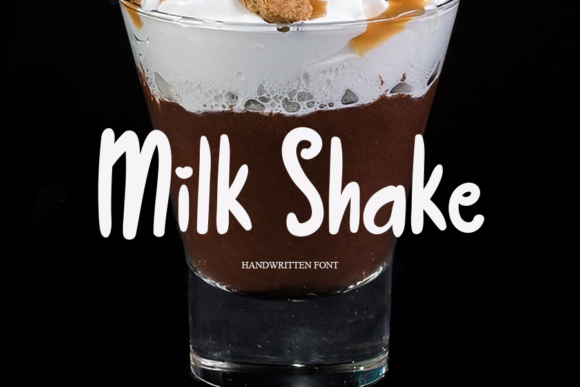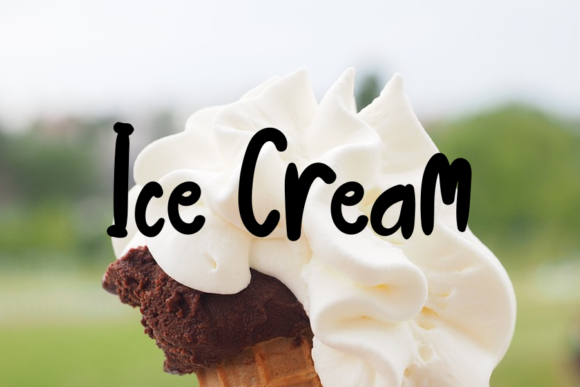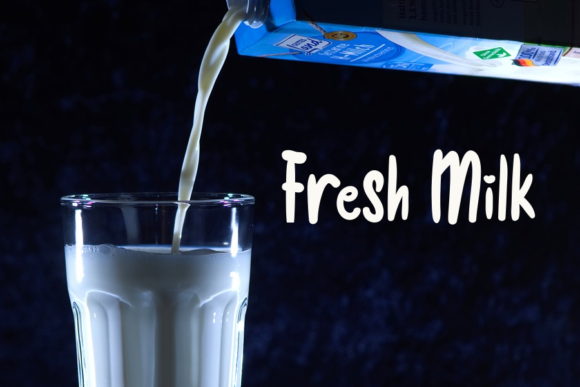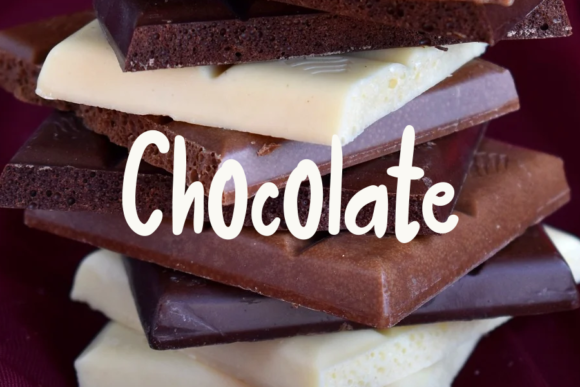
About Milk Shake Font
Introducing Milk Shake, a simple handwritten font that strikes the perfect balance between readability and trendiness. This font is a wonderful asset to your font library, as it has the potential to enhance any creation, regardless of the topic or design context.
Milk Shake’s simple handwritten design sets it apart as a font that captures attention while maintaining readability and a trendy aesthetic. Each letter is crafted with clarity and legibility in mind, while still incorporating stylish elements, creating a visually appealing composition. This balance of simplicity and trendiness adds versatility and charm to your designs, making them stand out.
The versatility of Milk Shake allows it to shine in various design contexts. Whether you’re working on branding projects, social media graphics, packaging, invitations, or any other creative endeavor, Milk Shake adds a touch of simplicity and trendiness. Its handwritten nature creates a visually engaging and approachable aesthetic that enhances the overall visual appeal.
Milk Shake’s simplicity and readability make it suitable for a wide range of designs. The clean letterforms and subtle flourishes make it perfect for adding a personal touch to your projects. Whether used for creating modern and minimalist designs, digital media, or any other application, Milk Shake brings a sense of authenticity and simplicity.
No matter the topic or design context, Milk Shake has the potential to enhance any creation. Its simplicity and trendiness make it suitable for various design projects. Let Milk Shake elevate your designs with its readable and trendy style, creating visually captivating compositions that leave a lasting impression.
In summary, Milk Shake is a simple handwritten font that strikes the balance between readability and trendiness. Its clean design captures attention while maintaining clarity and legibility. Embrace the versatility of Milk Shake and let it enhance the beauty and uniqueness of your creations, creating visually captivating designs that leave a lasting impression.